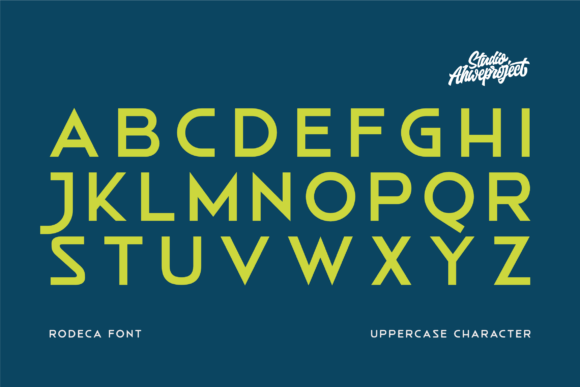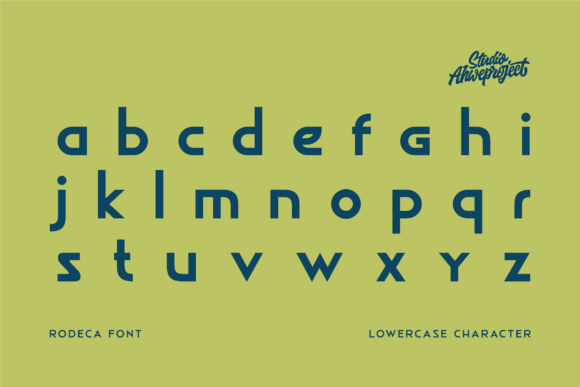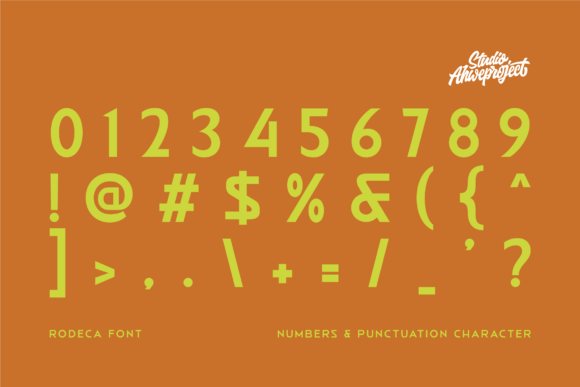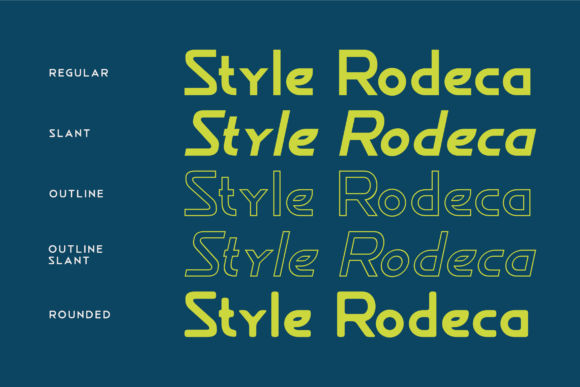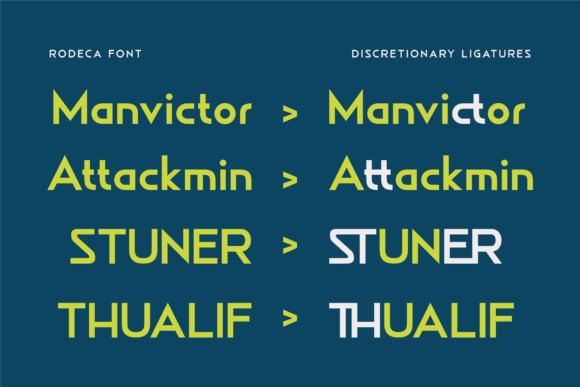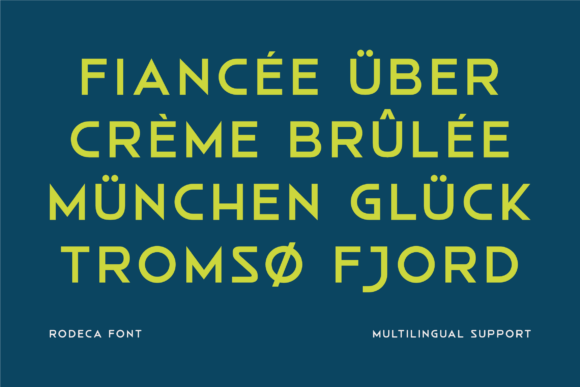
Introduction to Rodeca Font
Step into the bold elegance of the Art Deco era with Rodeca, a modern sans serif typeface that blends classic geometric shapes with sleek, contemporary flair.
With 5 unique styles, ligatures, and alternates, Rodeca offers versatility for any design needโwhether youโre working on branding, editorial layouts, posters, logos, or luxury packaging This font is designed for creatives who seek a strong visual identity.
Key Features of Rodeca Font